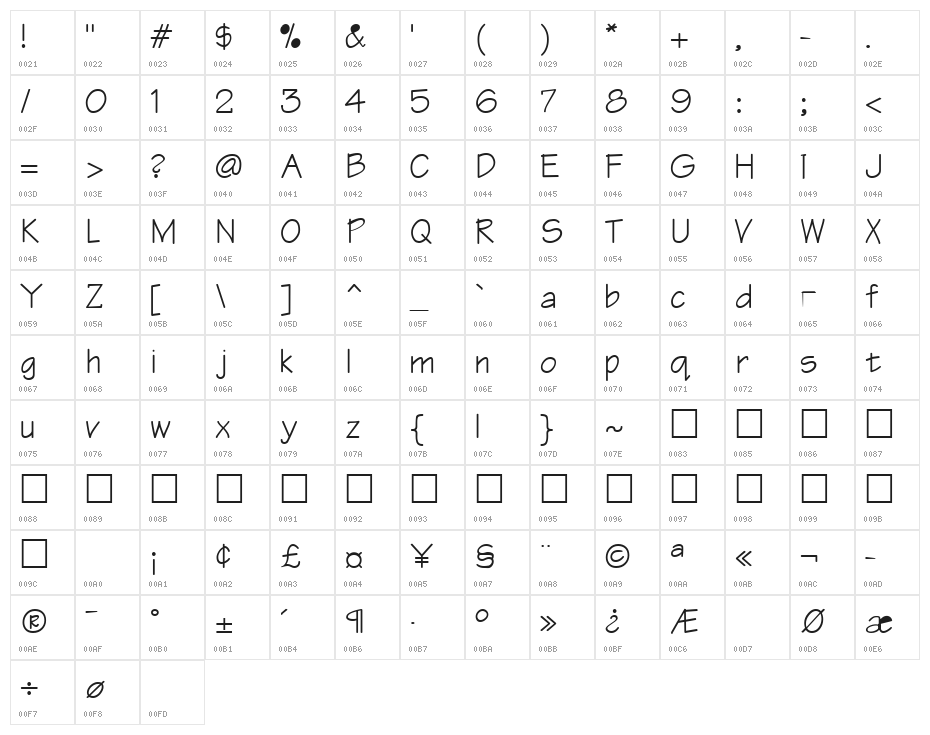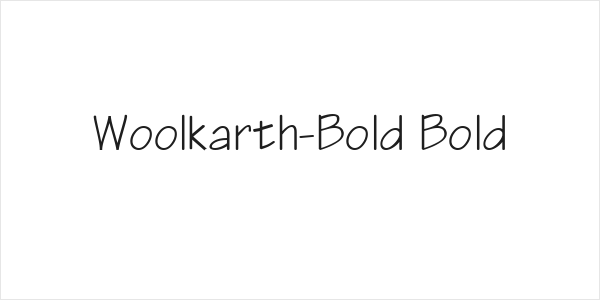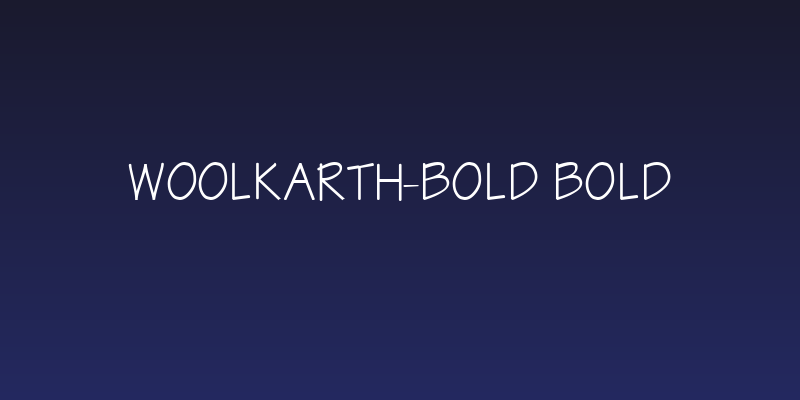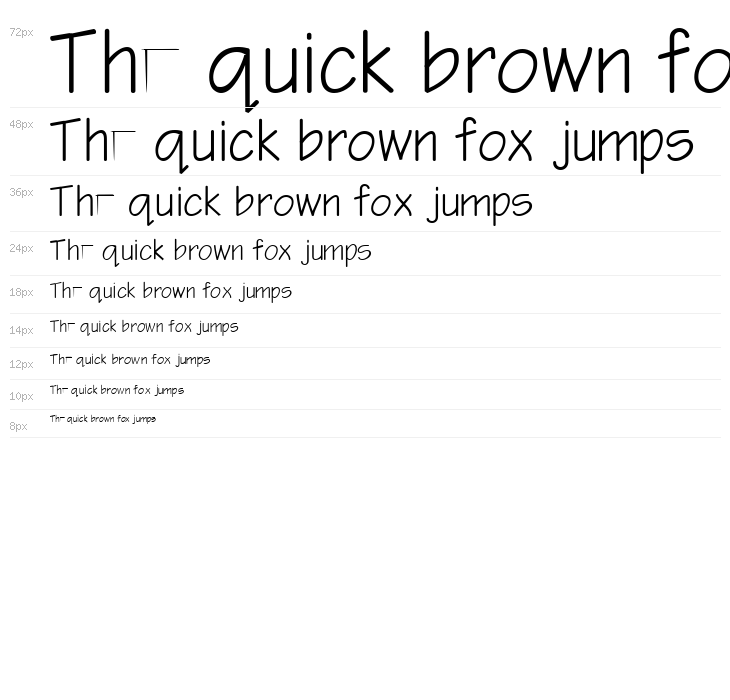
Woolkarth-Bold Bold Font
Woolkarth-Bold Bold Description
This font features a playful and informal style with a handwritten appearance. It has a casual and friendly vibe, characterized by its rounded edges and slightly irregular letterforms. The uppercase and lowercase letters maintain a consistent flow, while the numerals and special characters complement the overall aesthetic. The font's design is approachable and versatile, making it suitable for a variety of creative projects. Its unique charm lies in its ability to convey a sense of warmth and personality, making it ideal for projects that require a personal touch.